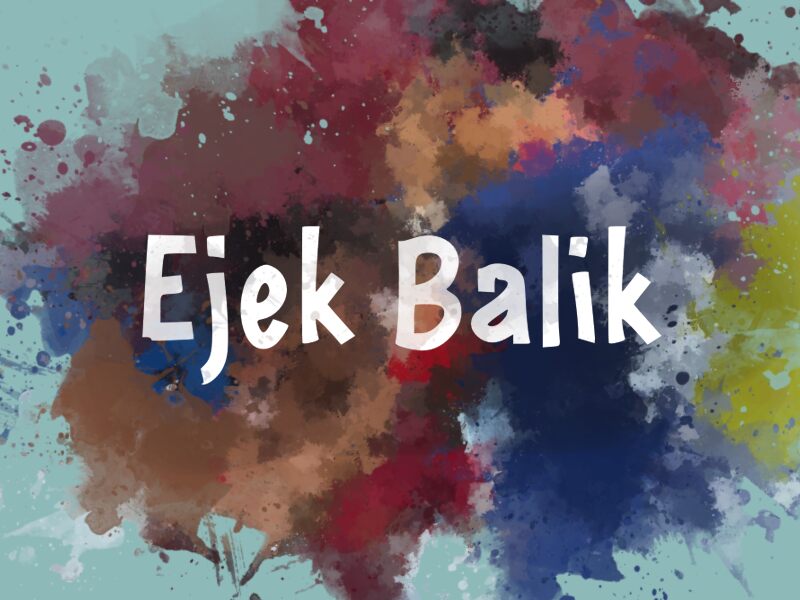
Ejek Balik
Ejek Balik is a playful and eye-catching display font designed by wep. Its cartoon style and semi-condensed width make it perfect for projects that require a fun, whimsical touch. Use Ejek Balik on children's book covers, posters for comedy shows, or even as the headline font for food packaging. The semi-bold typeface adds emphasis to your text without being too overwhelming, making it a great choice for titles and headings in websites or social media graphics. Elevate your designs with the unique charm of Ejek Balik - an unforgettable font that will bring a smile to anyone's face!